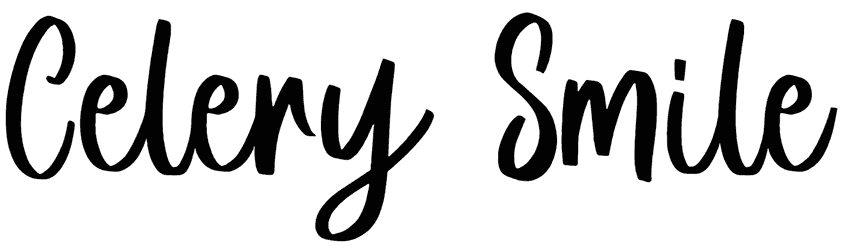
Celery Smile Font
Celery Smile is ideal for text-centric aesthetics and brand-centric projects and is a fantastic choice for many campaigns, marketing materials, and creative efforts.
This cursive font is designed to show common handwriting imperfections while maintaining a modern style and looks great in print and digital writing. This handwritten font is optimized to help convey your design goals and has fine lines that will make it successful in branding.